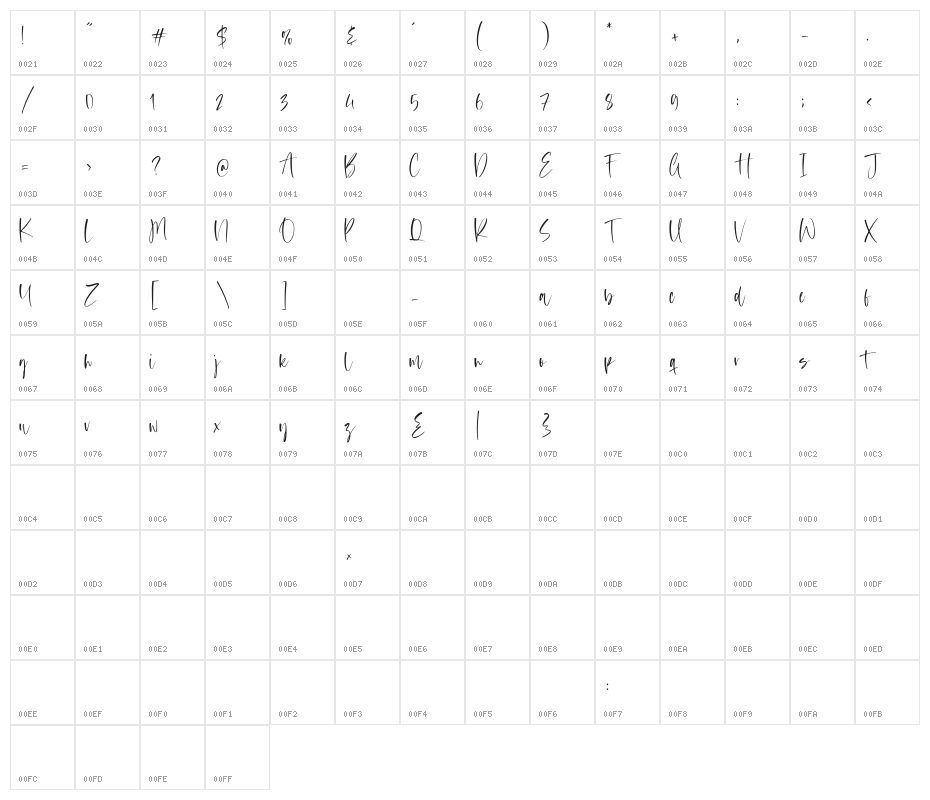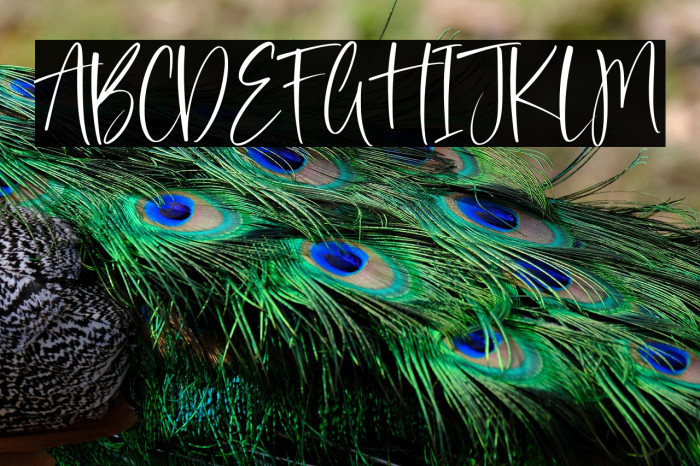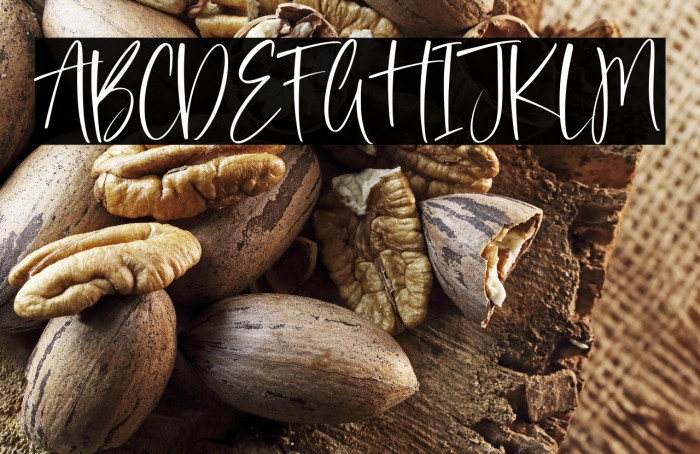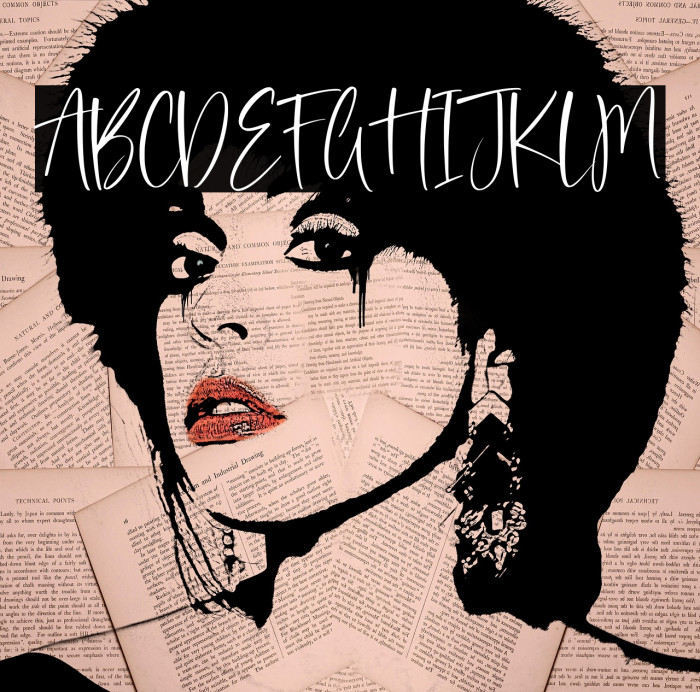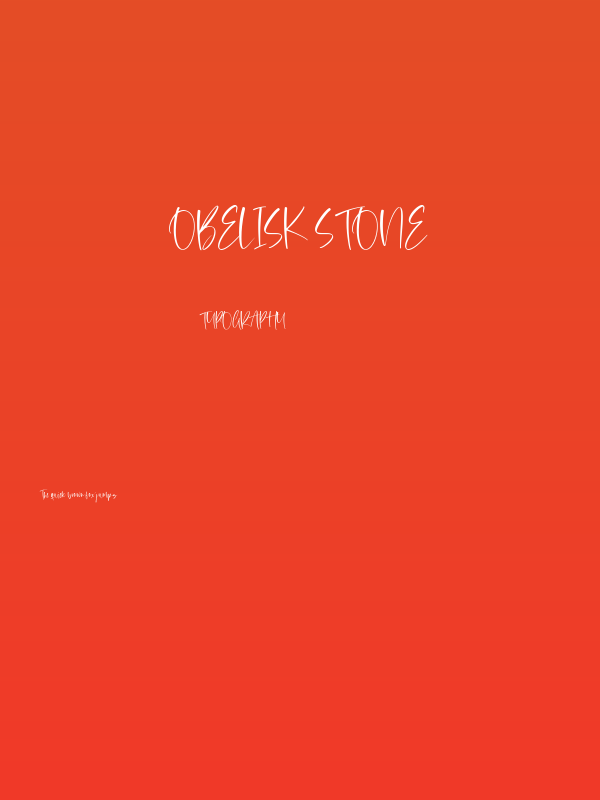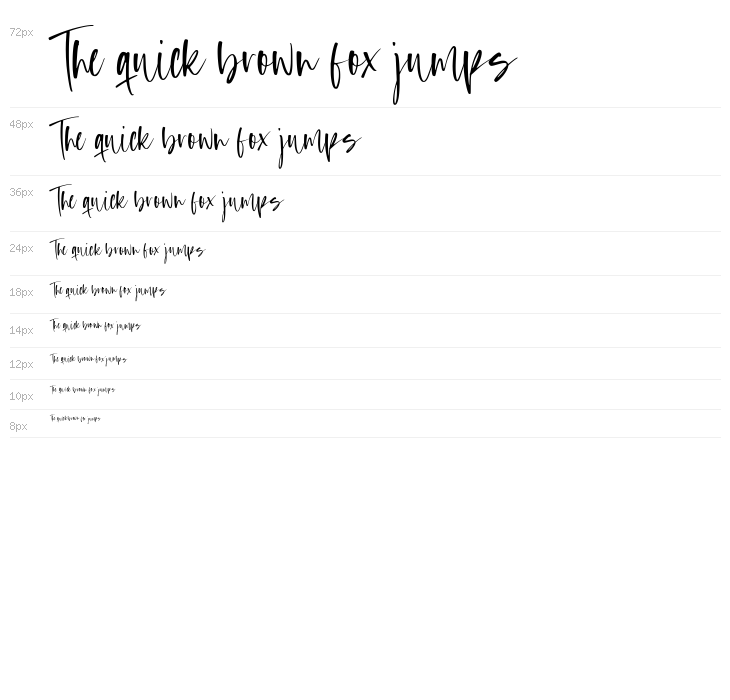
Obelisk Stone Font
Obelisk Stone Description
This font features a lively and expressive handwritten style, characterized by its fluid and dynamic strokes. The uppercase letters are tall and slightly slanted, giving a sense of movement and energy. The lowercase letters maintain a consistent flow, with some letters featuring loops and curves that add to the overall playful aesthetic. The numbers and special characters are crafted with the same attention to detail, ensuring a cohesive look across all glyphs. This font's unique style makes it stand out, offering a personal touch that is both modern and artistic.
| Proposed Projects | Ideal for creative projects such as invitations, greeting cards, branding, and social media graphics. |